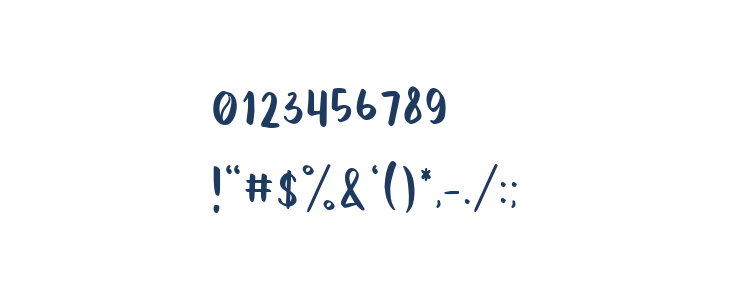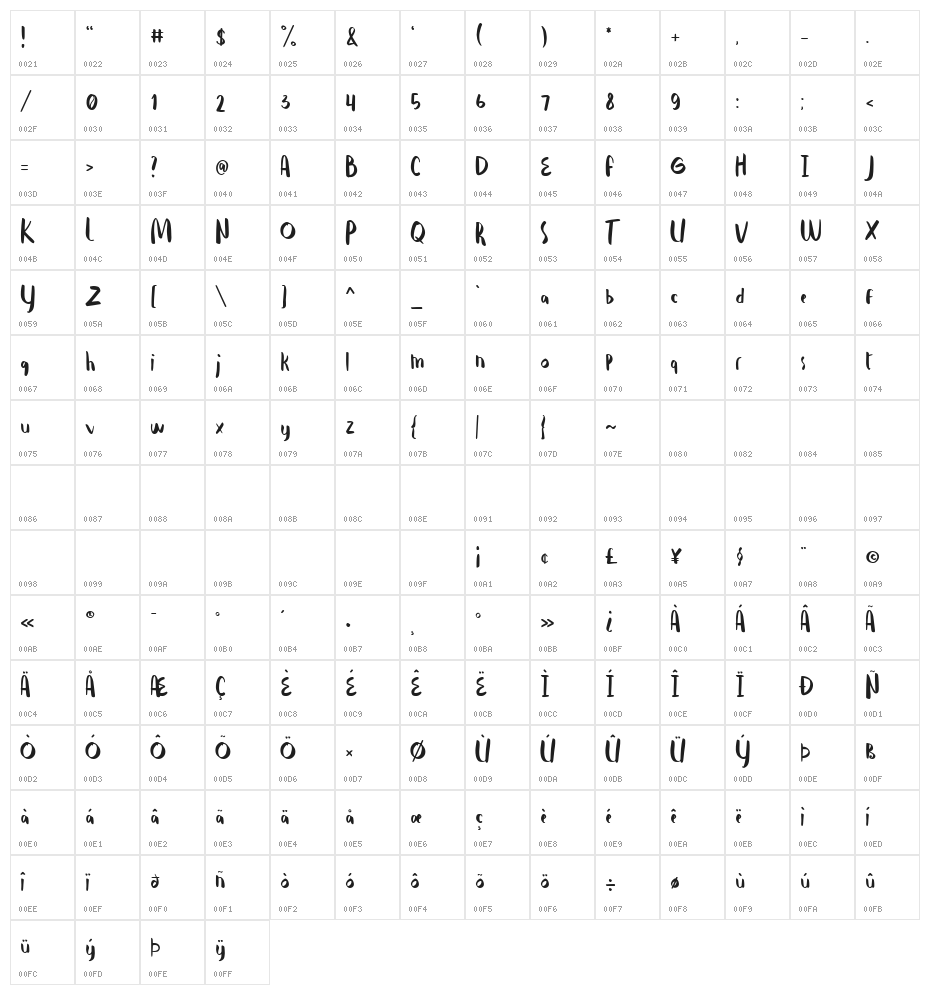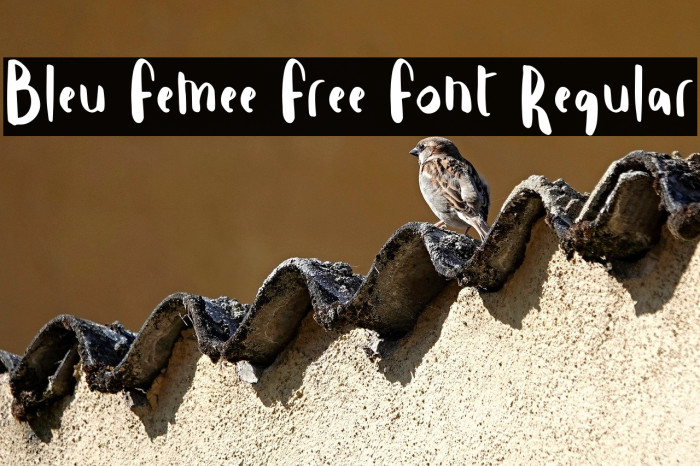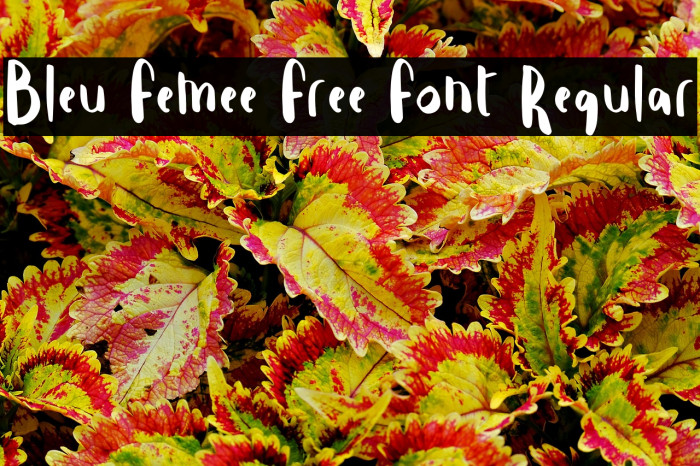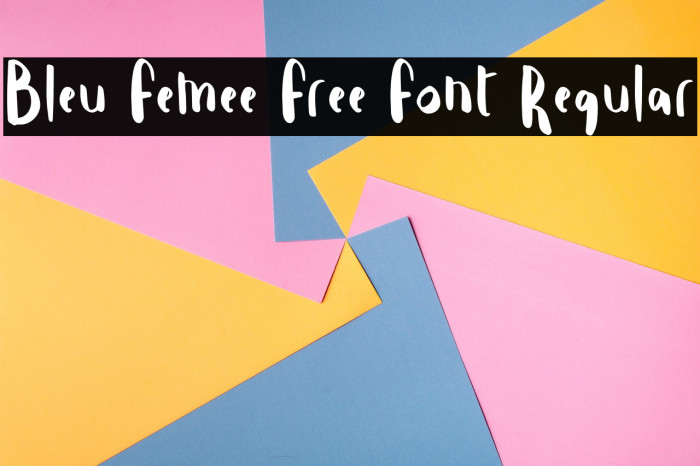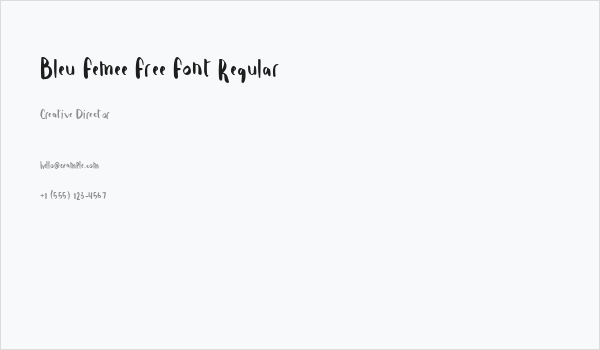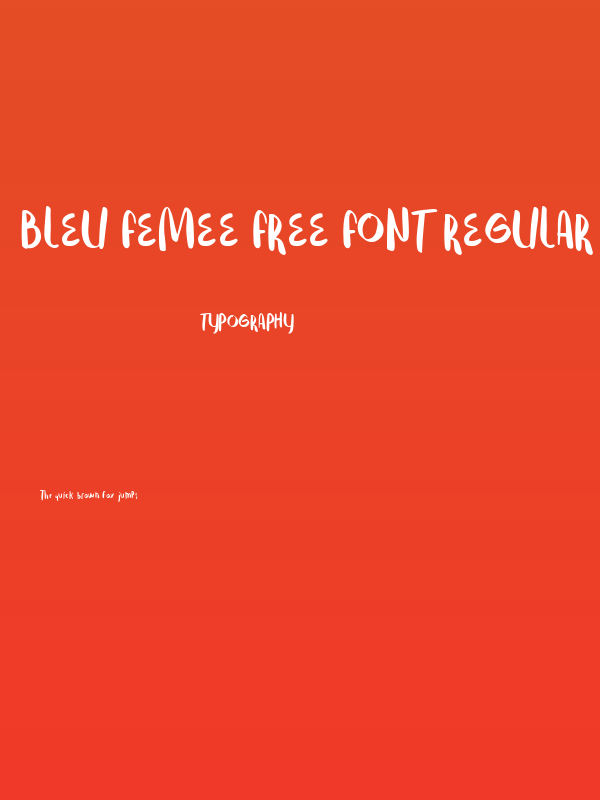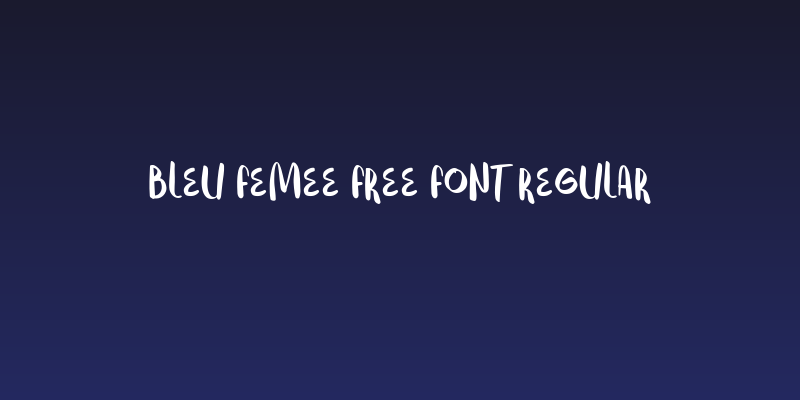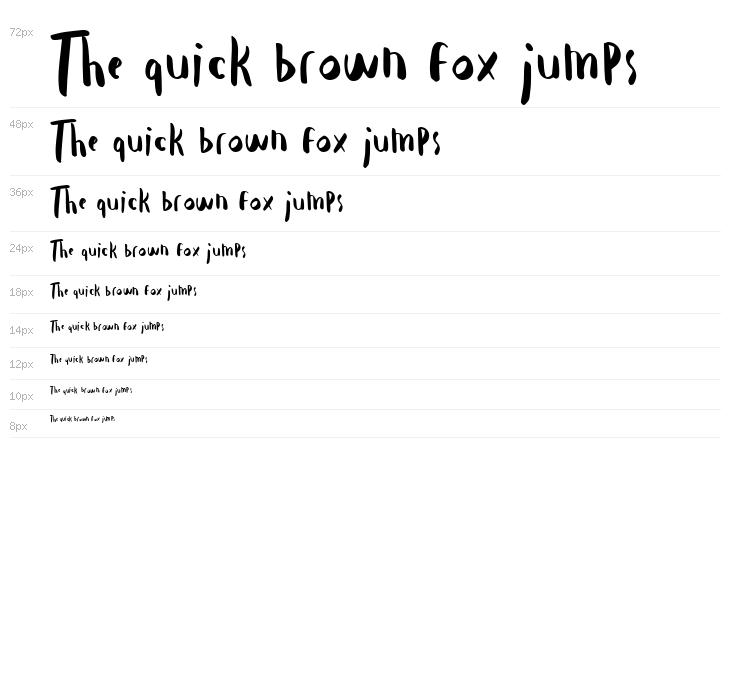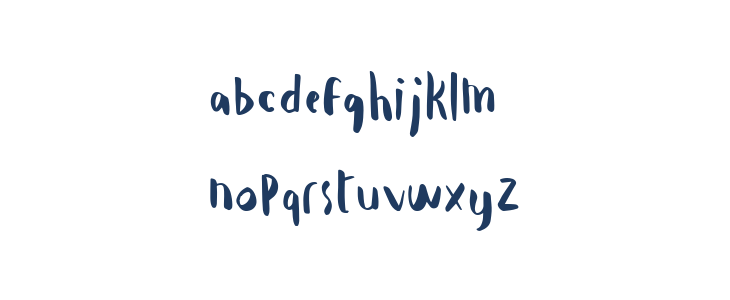
Bleu Femee Free Font Regular Font
Bleu Femee Free Font Regular Description
This font features a playful and casual handwritten style, characterized by its bold and slightly irregular strokes. The letters have a whimsical and friendly appearance, making them ideal for creative and informal projects. The uppercase and lowercase letters maintain a consistent style, with a slight slant that adds to the dynamic feel. The numerals and special characters are designed to match the overall aesthetic, ensuring a cohesive look across all text elements. The font's unique personality makes it suitable for projects that require a touch of fun and creativity.
Overall StylePlayful, Casual
Use CaseHeadlines, Logos, Creative projects
Proposed ProjectsIdeal for greeting cards, children's books, playful branding, and creative posters.